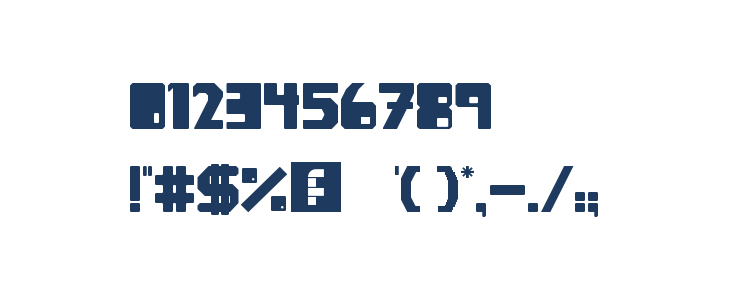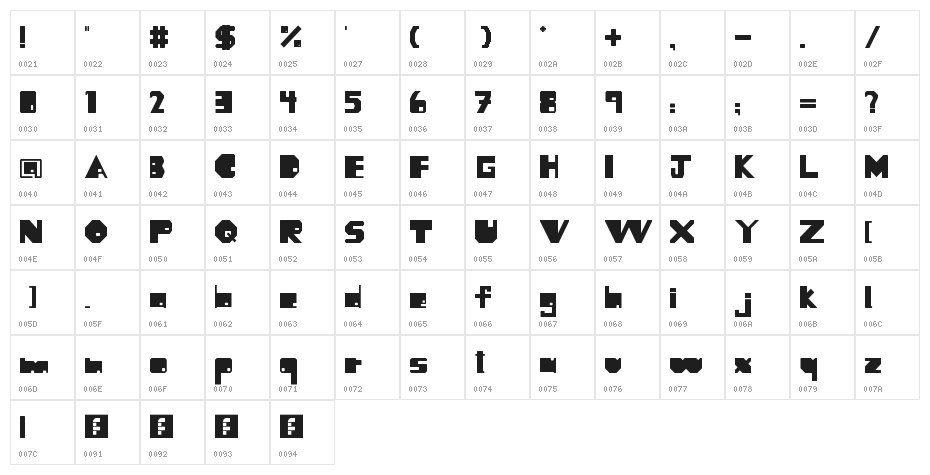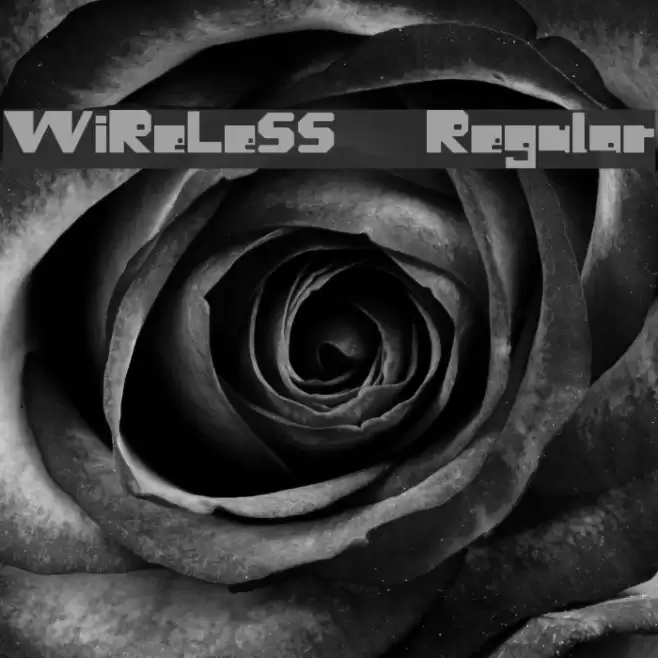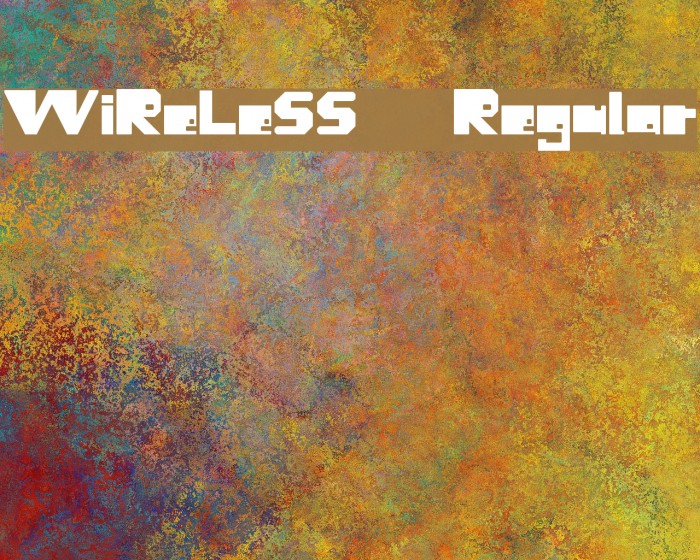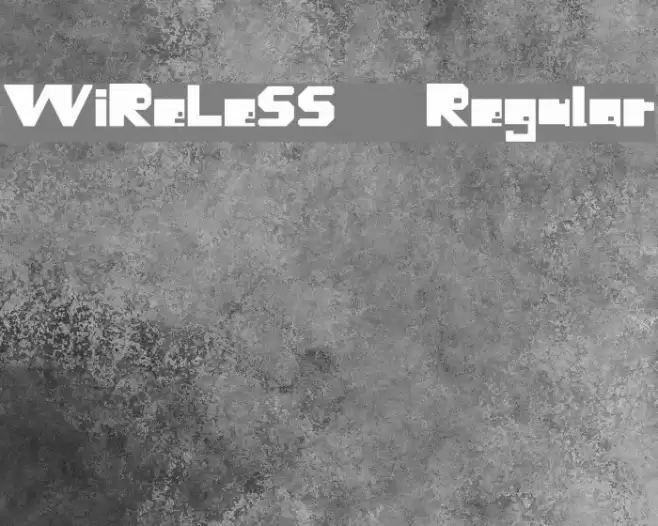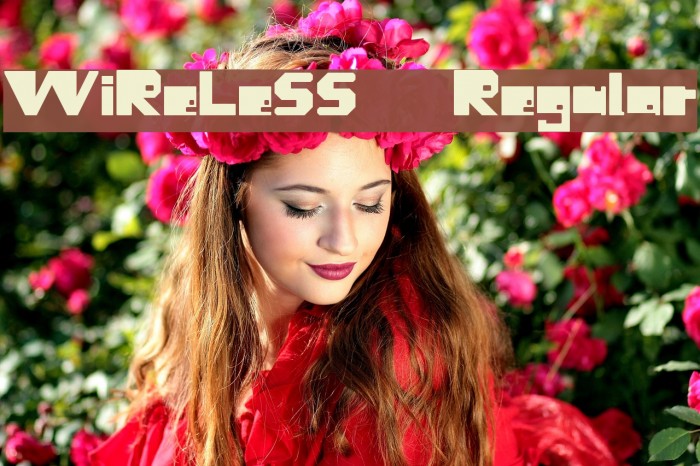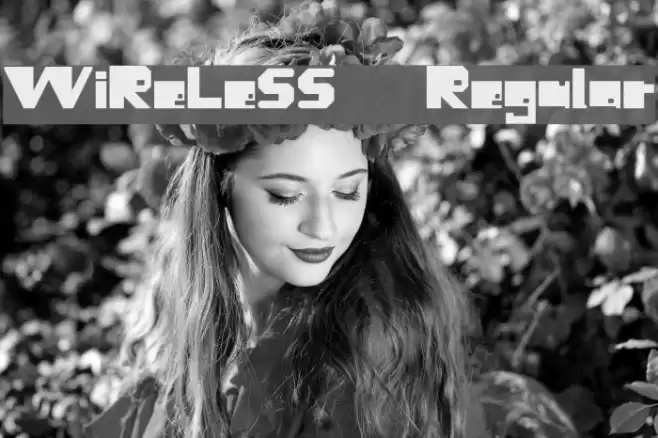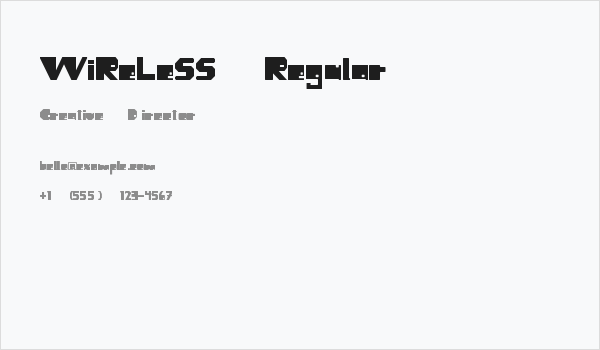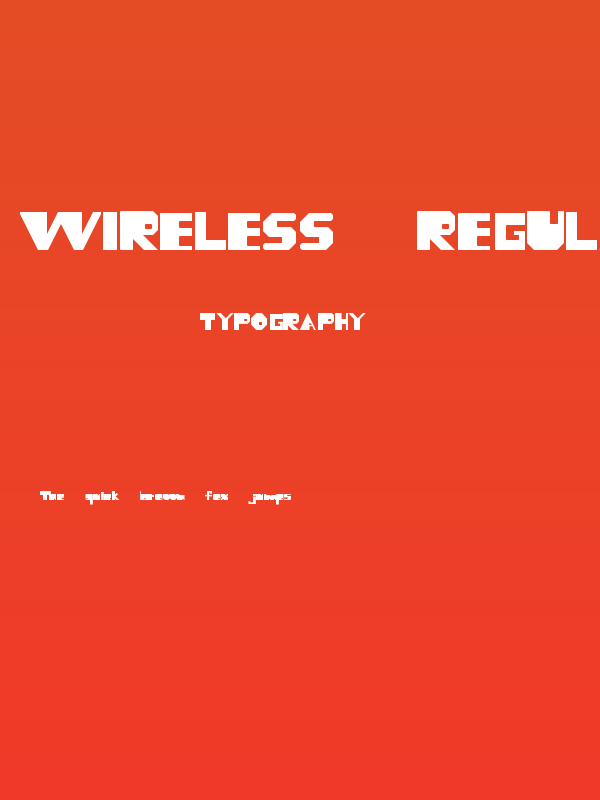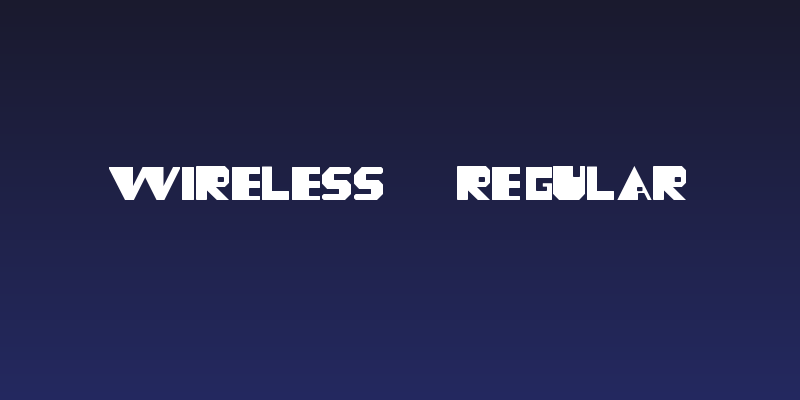
WiReLeSS Regular Font
WiReLeSS Regular Description
This font features a bold and geometric design with a strong presence. The characters are constructed with sharp angles and straight lines, giving it a futuristic and digital appearance. The uppercase letters are particularly striking, with a blocky and robust form that commands attention. The lowercase letters maintain the same geometric style, ensuring consistency throughout the typeface. Numbers and special characters are equally bold, making them stand out in any composition. The overall design is modern and edgy, suitable for projects that require a strong visual impact.
| Proposed Projects | Ideal for technology branding, video game titles, posters, and digital media projects. |